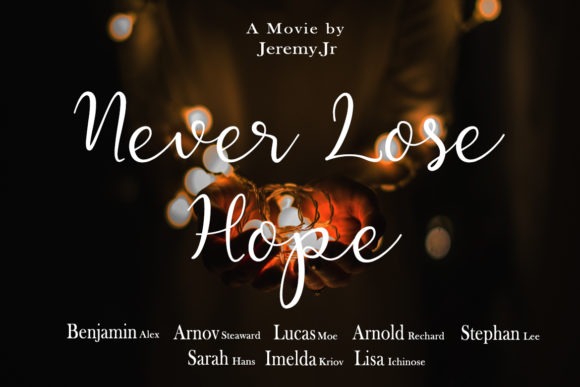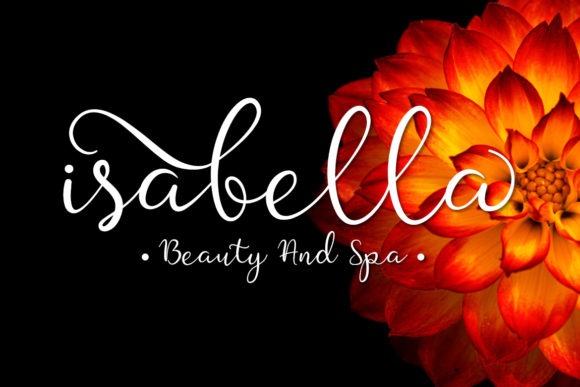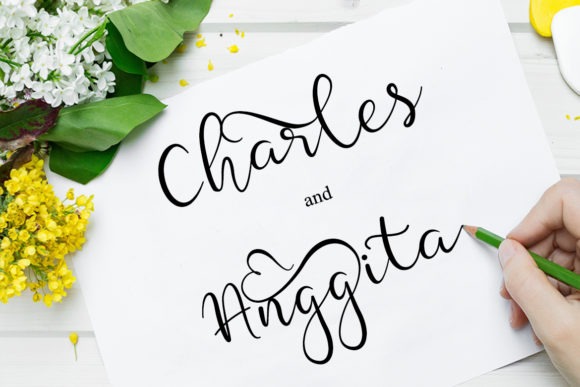
Silver Soul Font
Silver Soul Calligraphy Font is a very beautiful, elegant and unique handwritten typeface manufactured by Fahrul Anggoro. Expertly designed to be a true favourite, this font has the potential to take your creative ideas to the highest level! It has an elegant feel and is perfect for logos, wedding invitations, furniture design, signatures, branding, watermarks, and much more!